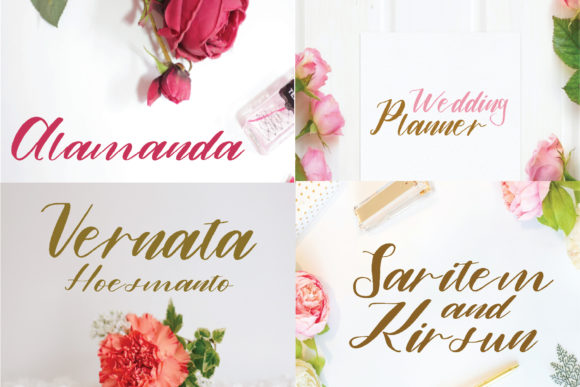
Discover the Elegance of Alamanda Font: Elevate Your Designs to New Heights
Are you on the hunt for a font that exudes sophistication, elegance, and a touch of modern flair? Look no further than the stunning Alamanda Font. This exquisite handwritten font is meticulously crafted to capture the essence of classy calligraphic influences while infusing a contemporary twist, making it a true standout in the world of typography.
The Charm of Alamanda Font
Alamanda Font is not just any ordinary font; it’s a masterpiece designed to become your new favorite. Its unique blend of traditional calligraphy and modern sensibilities makes it incredibly versatile, suitable for a wide range of projects. Whether you’re working on a luxury brand logo, an elegant wedding invitation, or a sophisticated advertising campaign, Alamanda Font is sure to bring a level of refinement and poise that elevates your work to the highest levels.
Key Features of Alamanda Font
- Classy Calligraphic Influences: Alamanda Font boasts beautiful, flowing lines reminiscent of traditional calligraphy, giving it an air of elegance and sophistication.
- Contemporary and Fresh: Despite its classic roots, Alamanda Font feels modern and current, ensuring your designs don’t feel outdated or stale.
- Versatility: From branding and logos to invitations and marketing materials, Alamanda Font’s versatility knows no bounds.
- Easy to Read: While it makes a stylish statement, Alamanda Font also prioritizes readability, making it perfect for both headlines and body text.
Why Designers and Crafters Love Alamanda Font
Designers and crafters worldwide have fallen in love with Alamanda Font for its ability to add a touch of luxury and sophistication to any project. Its unique character set and beautiful swashes offer endless creative possibilities, allowing designers to experiment and push the boundaries of their work. Moreover, the font’s user-friendly nature means that it’s accessible to crafters and DIY enthusiasts looking to add a professional touch to their handmade projects.
Using Alamanda Font in Your Projects
Incorporating Alamanda Font into your designs is straightforward and beneficial. Here are a few ideas to get you started:
- Branding and Logos: Use Alamanda Font to create a memorable logo that stands out and communicates your brand’s elegance and sophistication.
- Wedding and Event Stationery: Add a touch of romance and luxury to your wedding invitations, save-the-dates, and other event materials.
- Marketing Materials: Elevate your advertising campaigns, brochures, and flyers with a font that commands attention and exudes professionalism.
Alamanda Font is more than just a typeface; it’s a design statement. Its exquisite blend of classic calligraphy and modern sensibilities makes it the perfect choice for designers and crafters looking to add a level of sophistication and elegance to their work. Whether you’re aiming to create stunning visual content, enhance your brand’s image, or simply bring a touch of luxury to your DIY projects, Alamanda Font is sure to exceed your expectations. So why wait? Fall in love with Alamanda Font and discover a world of creative possibilities at your fingertips.